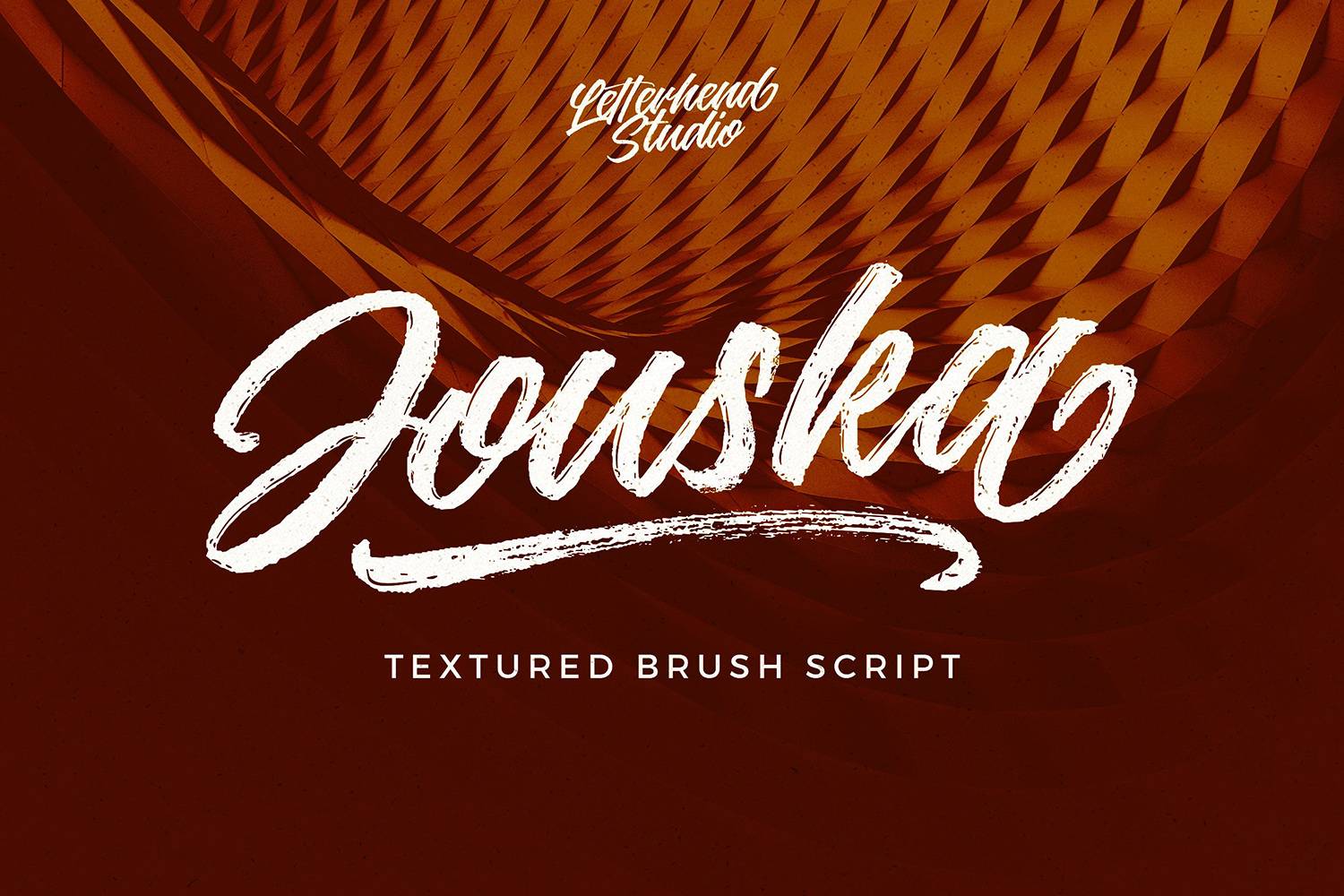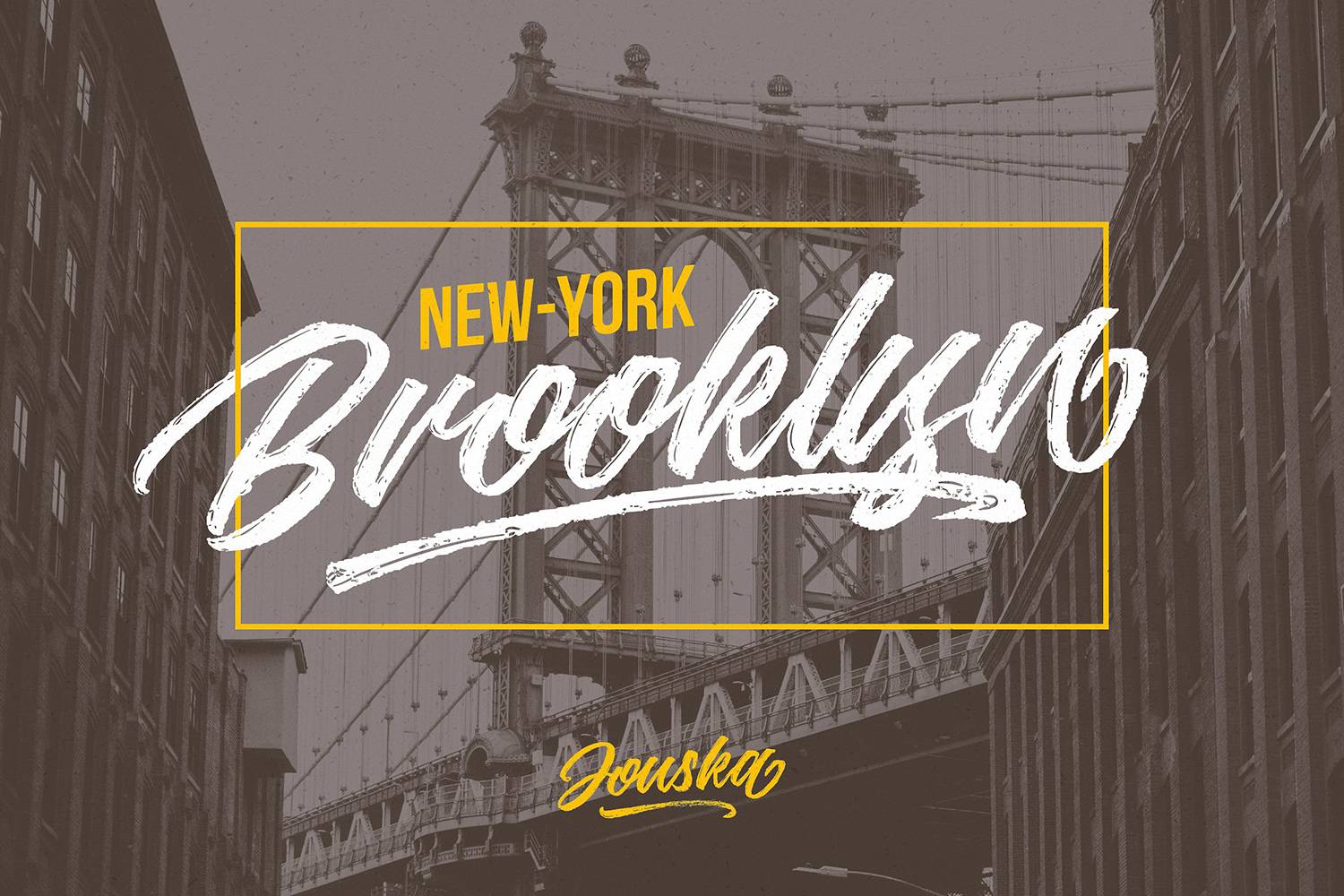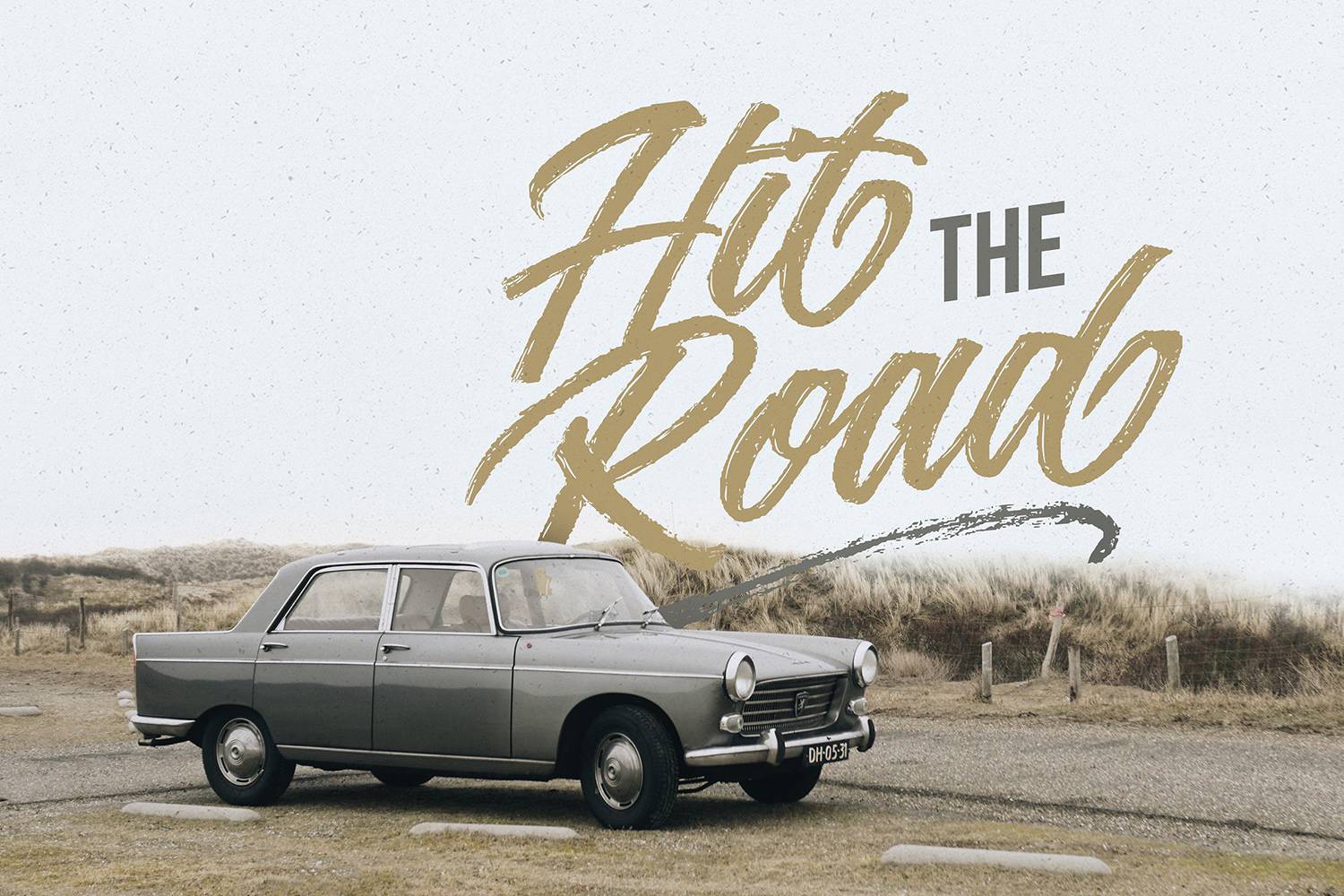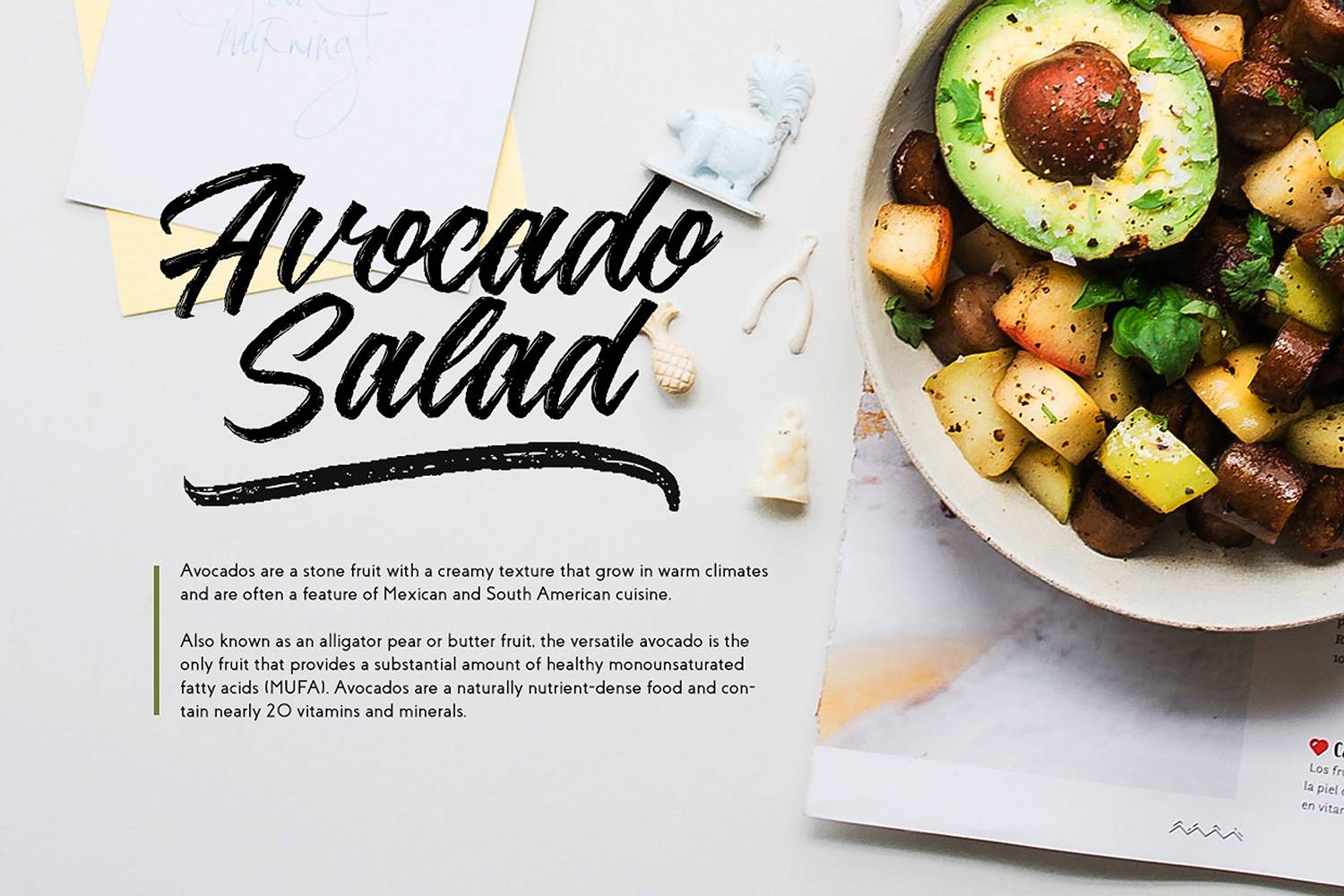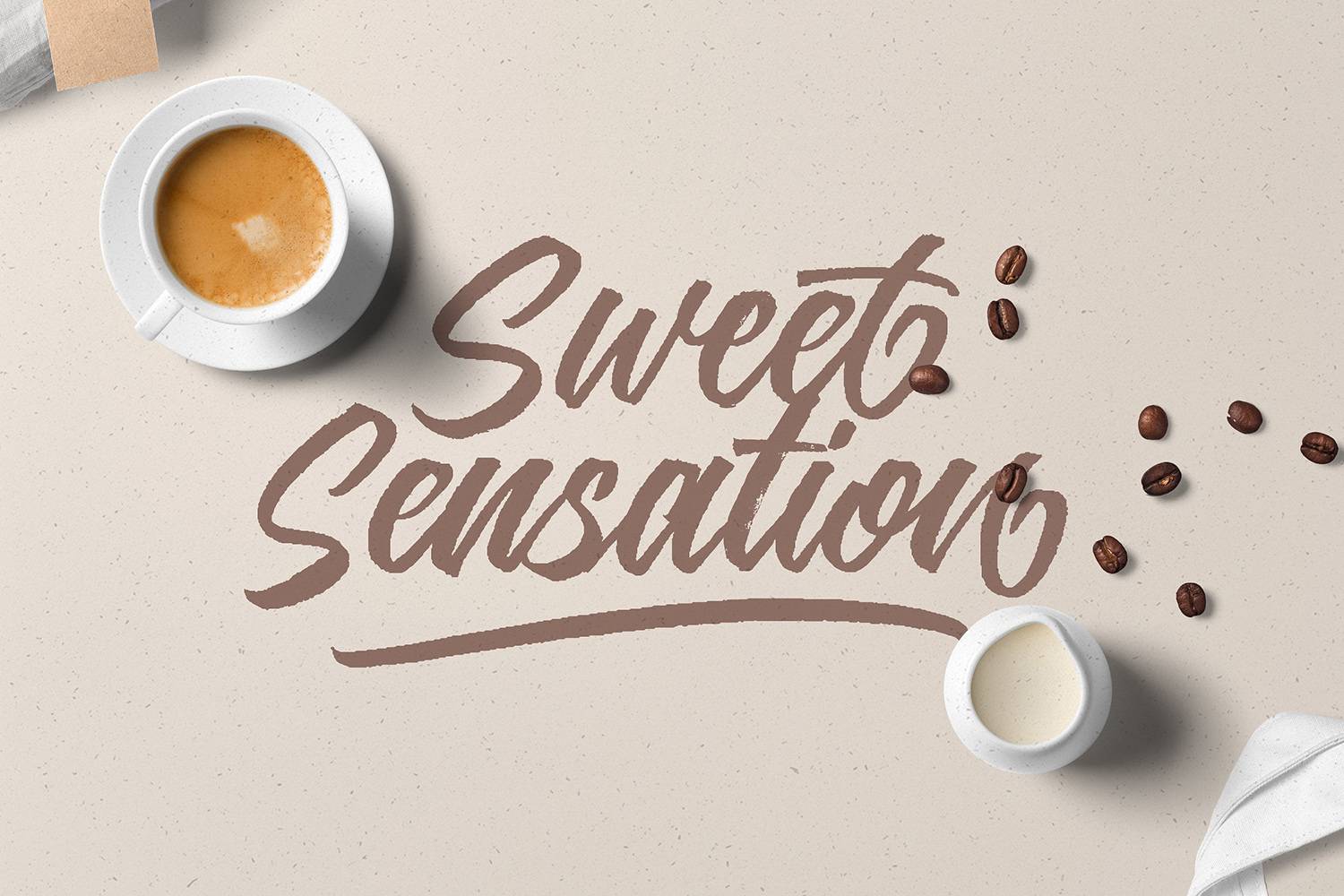
Jouska is a bold and expressive script font with a hand-painted feel, featuring smooth and energetic brush strokes that give it a lively personality. Its slightly condensed letterforms and casual yet stylish appearance make it perfect for creative branding, invitations, and headlines where a personal, artistic touch is desired. This font works well to convey warmth, creativity, and confidence in modern and informal design projects.
Jouska Font
About Jouska Font
| Font family | Jouska Font |
| Release date | 2017-01-10 |